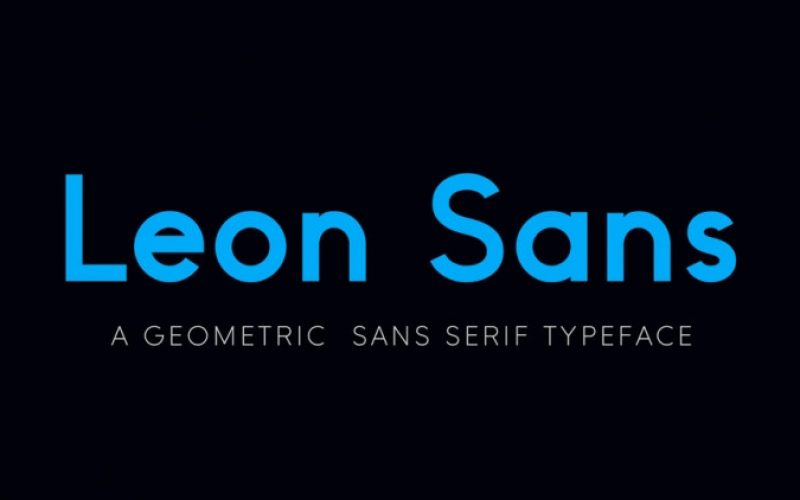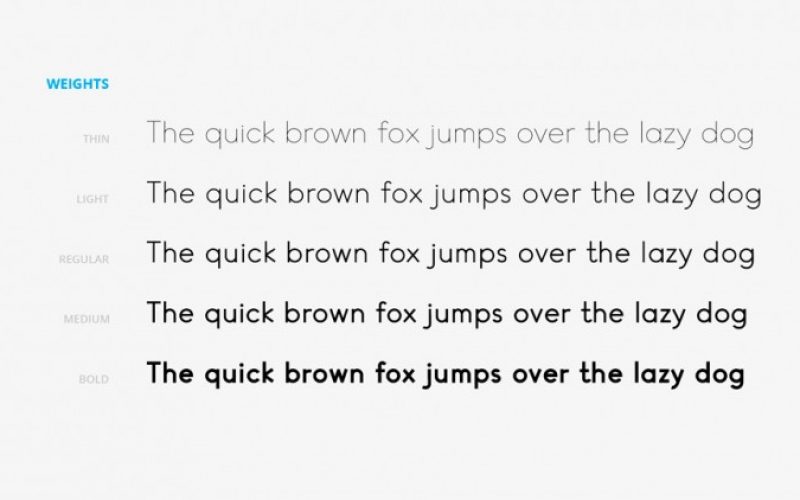
Leon Sans Font
Leon Sans is a geometric sans-serif typeface made with code in 2019 by Jongmin Kim. It allows to change font weight dynamically and to create custom animations, effects or shapes in the Canvas element of HTML5. He designed the font to celebrate his newborn baby Leon.
Designer Name: | Jongmin Kim |
Classification: | Basic, Sans Serif |